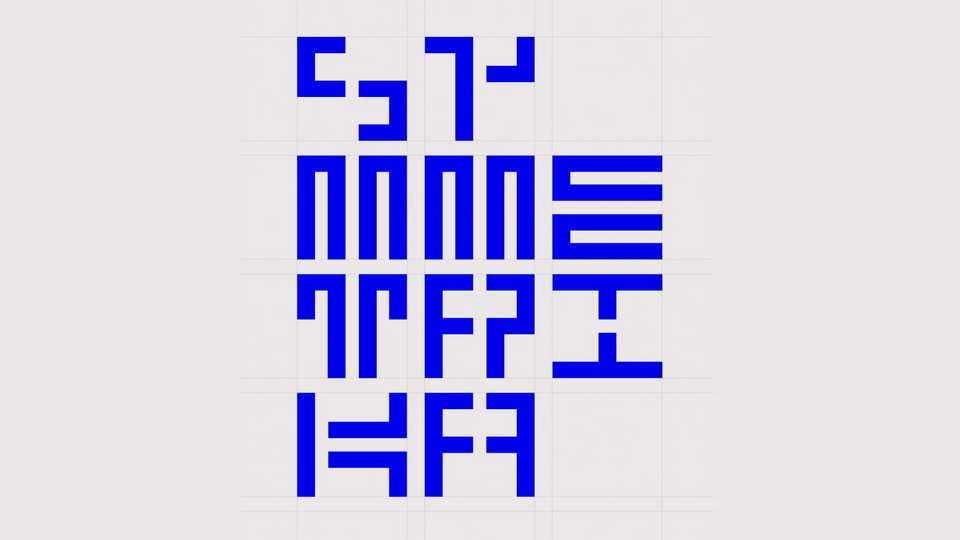
Download Symmetrika font, an experimental modular display typeface based on rectangular shapes. Symmetrika font is ideal for posters, headlines and typography art.
Designer: Spin Studio